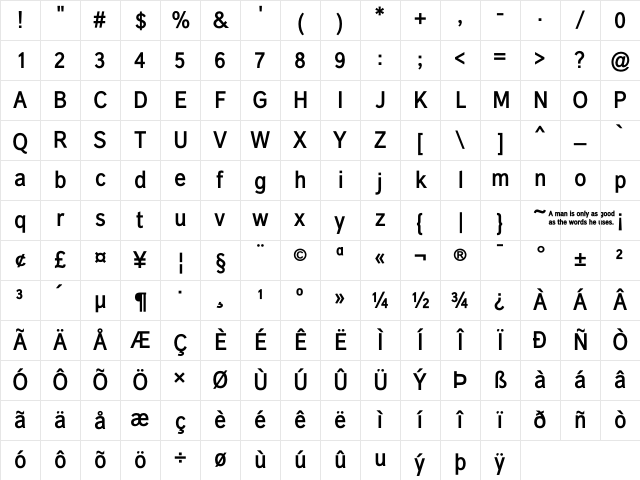
Complete Carnova SemiBold Regular glyph index. Displaying only characters natively supported by Carnova SemiBold Regular font.
Carnova SemiBold is a composed and adaptable typeface that performs quietly and consistently across a wide range of design contexts. Its bold stroke weight gives it real presence on the page.
Pro Tip: Use Carnova SemiBold in both headline and body roles to test its range before committing to a single application.
Who designed the Carnova SemiBold Regular font?